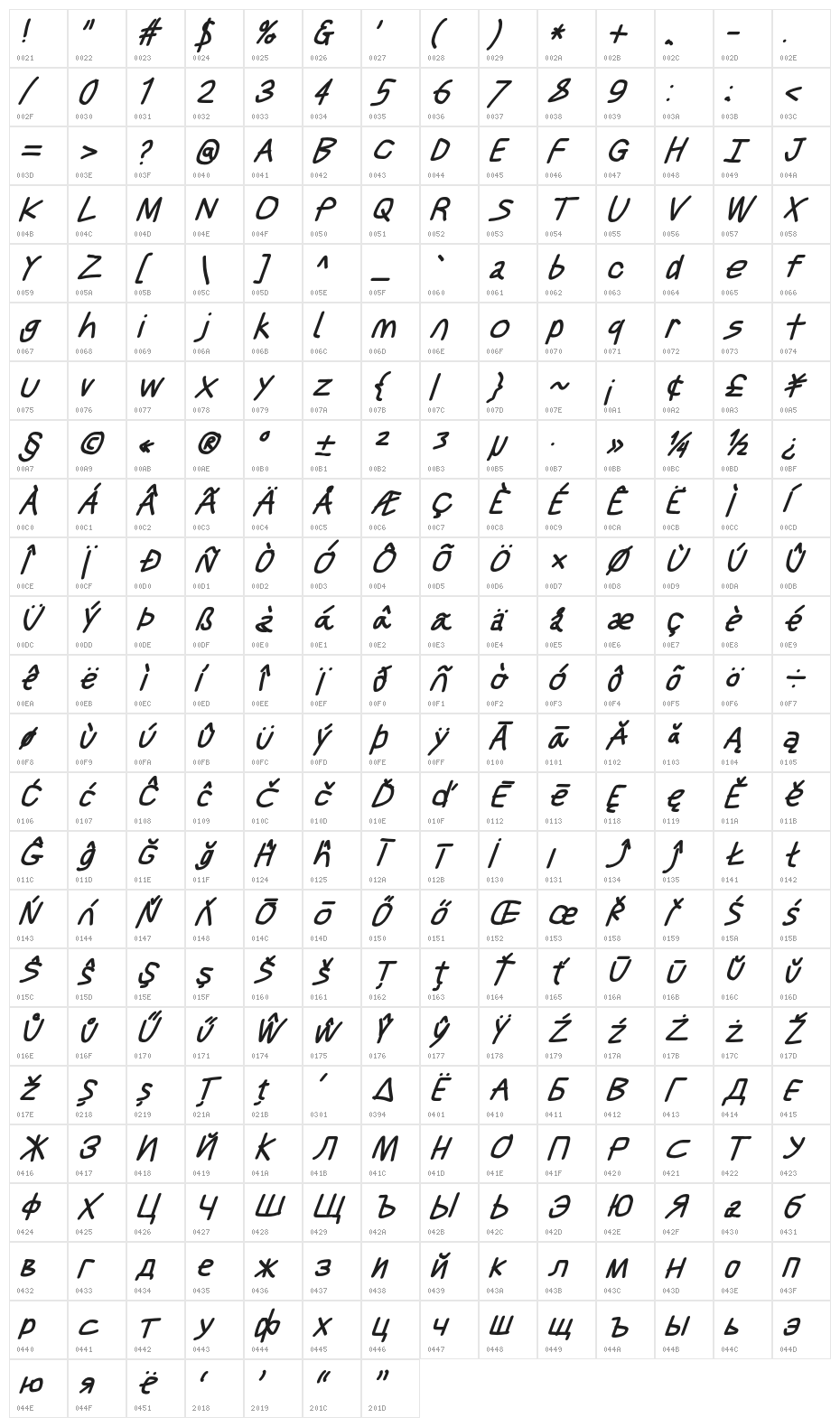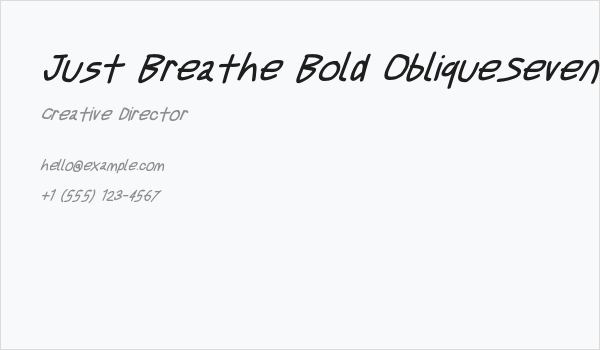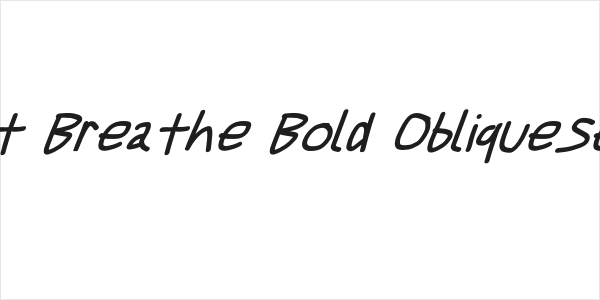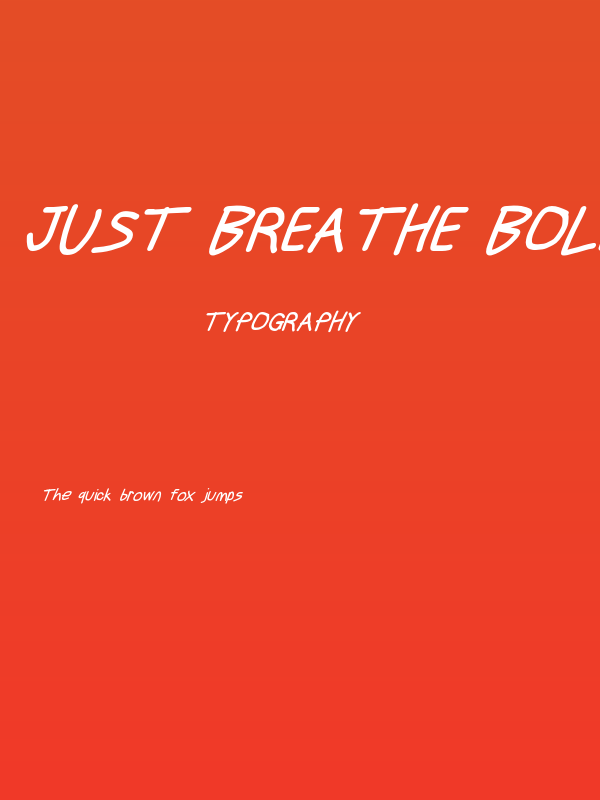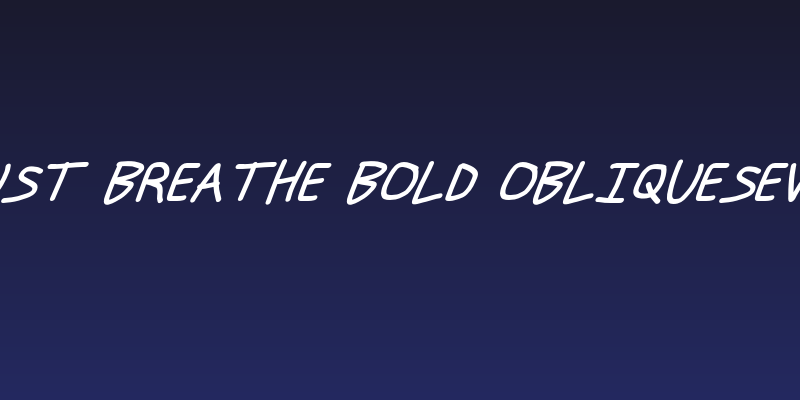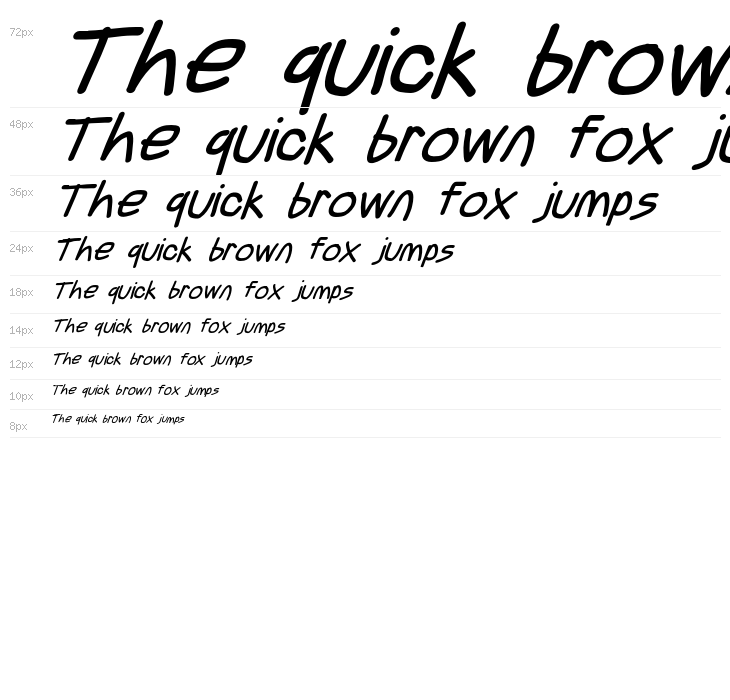
Just Breathe Bold ObliqueSeven Font
Just Breathe Bold ObliqueSeven Description
This font features a bold and oblique style with a handwritten appearance, characterized by smooth, flowing strokes that give it a casual and informal feel. The letters are slightly slanted, enhancing the dynamic and energetic look. Uppercase and lowercase letters maintain a consistent style, with rounded edges and a playful touch. The numerals and special characters follow the same design, ensuring uniformity across all characters. This font is ideal for projects that require a personal and approachable aesthetic.
| Proposed Projects | Ideal for greeting cards, personal branding, casual invitations, and social media graphics. |